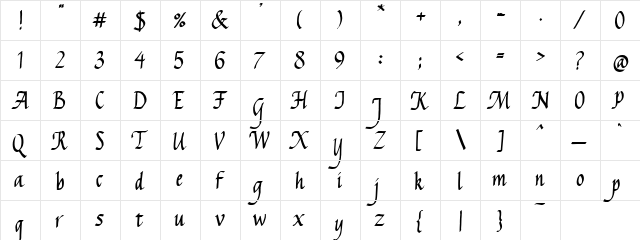
PC Hannah's Hand Regular
Design Context for PC Hannah's Hand Typeface
PC Hannah's Hand brings a calligraphic fluidity to the page — its connecting strokes and expressive curves give it an unmistakably human quality.
Font Pairing: Combine PC Hannah's Hand with a simple geometric sans for maximum contrast — the tension between flowing curves and clean structure is a classic typographic pairing.
Pro Tip: Pair PC Hannah's Hand with a clean sans-serif for supporting text. The contrast between fluid script and geometric structure creates an elegant typographic hierarchy.